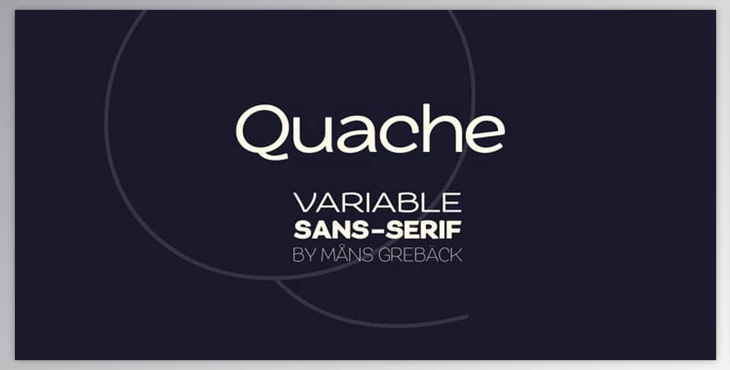
Quache Variable Font - MyFonts: Quache is a non-serif font that is flexible and designed by Mans Greback between 2018 and 2020.
It is stylish and unique. Curvatures, and is clear, well-read, and sharp, with its clear letters.
This is a uniform font, and it's a single-font file. However, the font file has different styles.
This provides you with not just the predefined styles of 28. However, it also gives you 1000 times more possibilities to tailor the style to match the look that your project demands.
What is Quache Variable Font - MyFonts?
Variable Font - MyFonts is an impressive and versatile typeface, especially with its variable font capabilities. The fact that it was created by Måns Grebäck, a known type designer, adds to its credibility.
The ability to manually set weight and width using sliders in design software like Illustrator, Photoshop, or InDesign provides designers with a high level of customization. The claim of having 1000 times 1000 options for customization suggests an incredible range of possible styles, making it a valuable tool for various design projects.